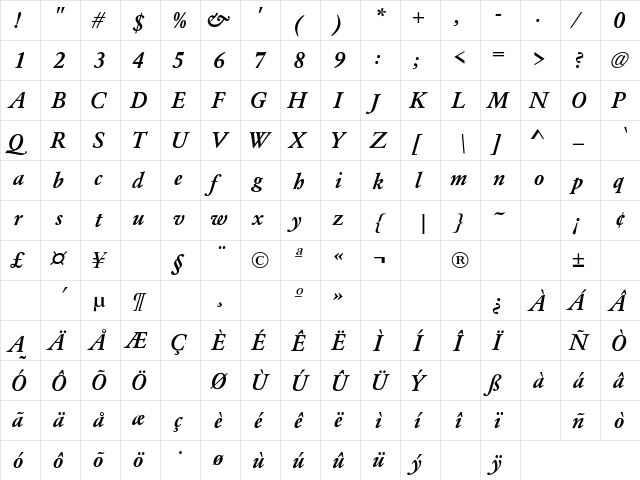
RobinHood-Italic Regular
Design Context for RobinHood-Italic Typeface
RobinHood-Italic is a composed and adaptable typeface that performs quietly and consistently across a wide range of design contexts. The slanted form adds forward momentum and visual energy.